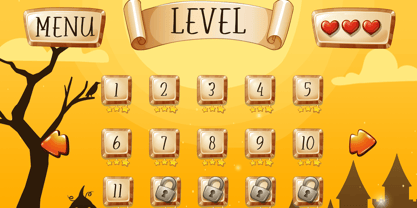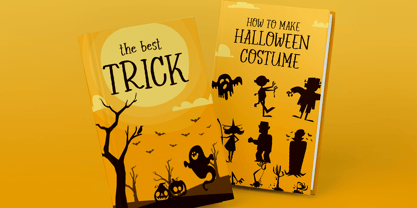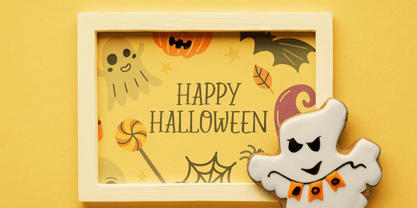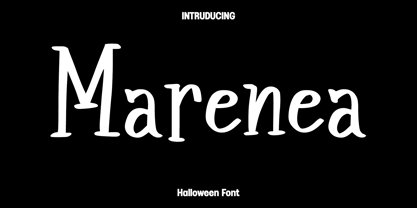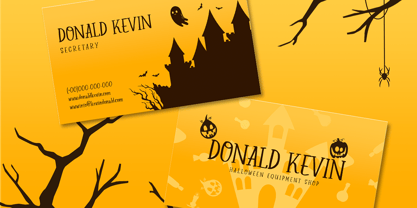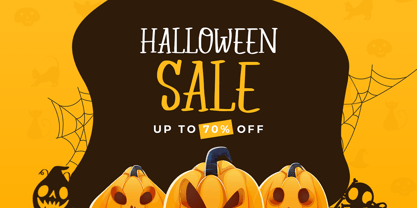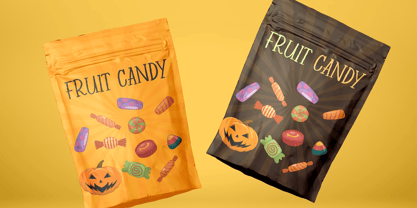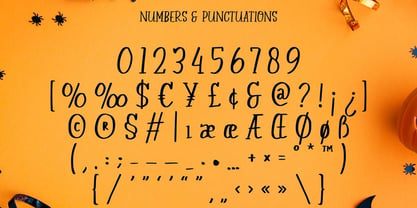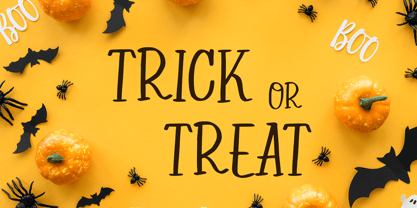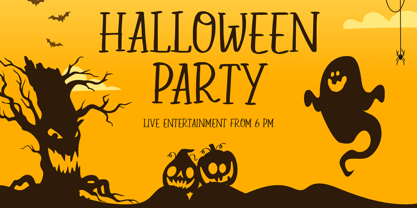
Marenea
La familia tipográfica Marenea fue diseñada por Olivia Love y publicada por Only Fonts. Marenea contiene 1 estilos. Más información sobre esta familia
Marenea – Playful Halloween Display Font Marenea is a whimsical Halloween display font crafted to infuse your seasonal projects with spooky fun, festive charm, and a creative personality. Drawing inspiration from classic Halloween celebrations, friendly ghosts, pumpkins, and whimsical autumn decorations, Marenea showcases quirky letterforms with playful curves that create a lighthearted and memorable visual style. This font strikes a perfect balance between spooky character and cheerful energy, making it suitable for audiences of all ages. Ideal for Halloween party invitations, greeting cards, posters, event flyers, seasonal branding, product packaging, social media graphics, classroom activities, children's books, apparel, and festive decorations, Marenea transforms ordinary text into eye-catching typography brimming with Halloween spirit. Its expressive design fosters a fun atmosphere while ensuring clarity and readability across both print and digital applications. Marenea is designed for creatives seeking typography that captures the excitement of Halloween without being overly frightening. The playful details and handcrafted appearance add warmth, creativity, and imagination to every composition, making it an excellent choice for family-friendly events, seasonal promotions, and innovative branding projects. Whether designing for children, businesses, or holiday campaigns, Marenea delivers the ideal blend of spooky and adorable. With its charming personality and festive style, Marenea is an essential addition to any Halloween font collection, ensuring your seasonal designs stand out with originality, creativity, and unforgettable character. Marenea Font Features: • Unique Halloween-inspired display characters • Uppercase and lowercase letters • Numerals, punctuation, and symbols • OpenType features • Multilingual support • Perfect for Halloween invitations, posters, branding, packaging, and social media • Playful, spooky, and family-friendly typography style • Suitable for both print and digital projects